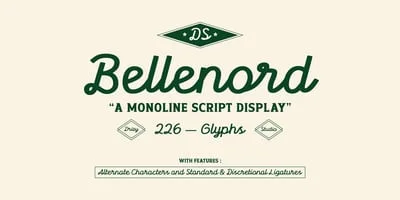
Bellenord Font
Bellenord Font is perfect for luxury Parisian boutiques, French restaurant branding, elegant French château marketing, sophisticated wine labels, haute couture fashion designs, romantic French wedding invitations, upscale French bakery signage, and refined European cultural events.
This font is exciting because it embodies the timeless elegance of French sophistication with Parisian chic and aristocratic refinement. Bellenord Font features graceful letterforms with French classical inspiration that capture the essence of Parisian boulevards and château grandeur, making it ideal for projects that require authentic French elegance and cultural sophistication.
The Bellenord Font family includes regular, light, bold, and ornamental variants, along with French-inspired alternates and elegant ligatures that enhance its sophisticated character. Each weight maintains the font's refined aesthetic while providing different levels of French expression for various luxury and cultural design applications.
Whether you're developing prestigious French brands, creating compelling luxury materials, or designing sophisticated European campaigns, Bellenord Font delivers exceptional elegance and French appeal. Its distinctive Parisian style makes it an excellent choice for designers seeking to add genuine French sophistication and aristocratic charm to their projects. The font's versatility extends from luxury fashion branding to French cultural institution materials, ensuring consistent performance across all sophisticated applications. With its meticulously crafted letterforms and French proportions, this typeface provides professional results that evoke Parisian elegance and establish refined brand presence with its unmistakable French character and timeless European sophistication.